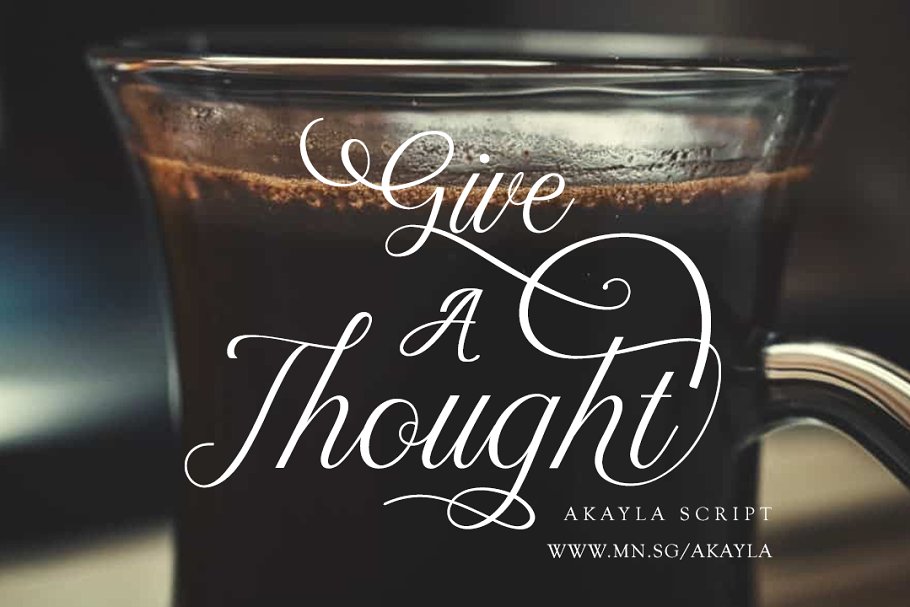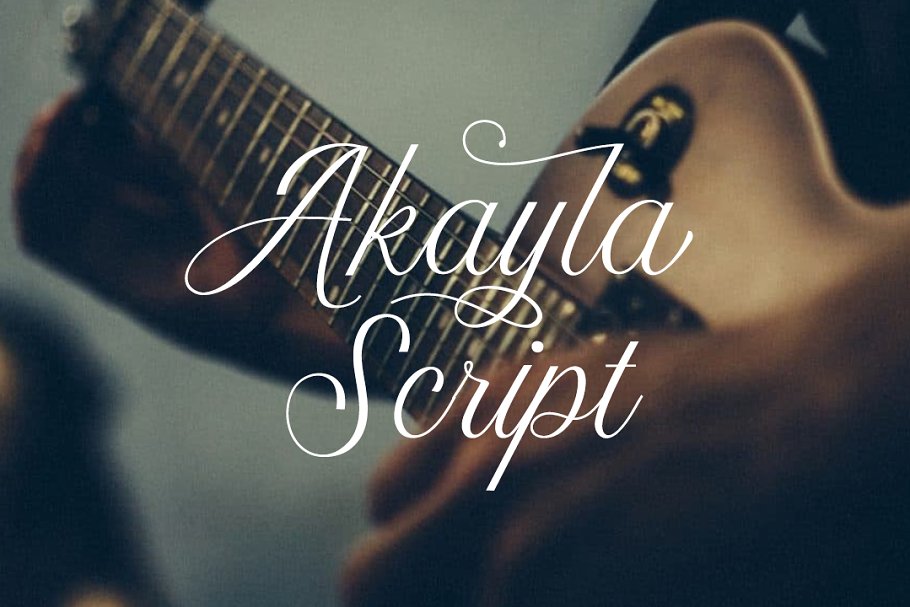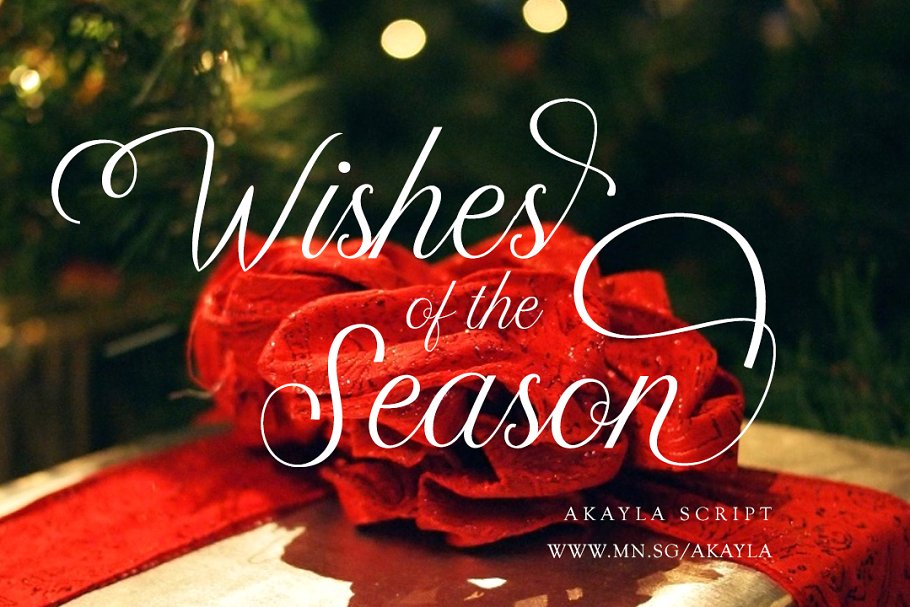
Akayla Script Font
A new fresh handmade calligraphy font. A stunning collection of a romantic script. Use this collection to create the most gorgeous wedding designs. Introducing Akayla Font. Akayla is a beautiful, genuine calligraphy typeface. It is swashy, yet crafty, which contributes to giving any project a personal touch. With multiple stylistic and swash alternates, this font is subject to great variety. Perfect for branding, social media headers, product packaging, wedding invites and cards and so on.